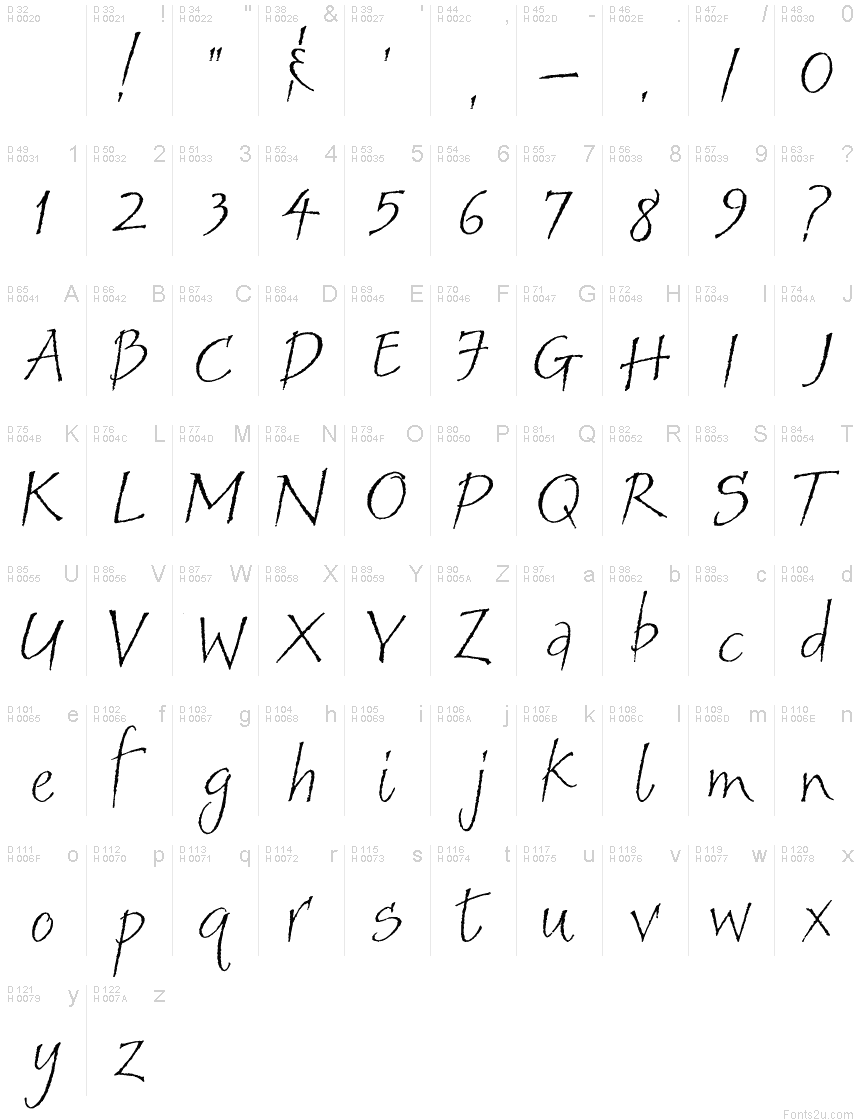
Sandalsis a free handwritten calligraphy font with the loose movement of quick pen lettering. Its uneven, changing strokes and long sweeping lines give the letters an unpolished signature quality.
Fashion labels could use it for branding with a personal, hand-signed air. The same wiry handwriting suits album artwork, invitations, and editorial features built around an intimate voice. Its rough pen marks belong in designs connected with acoustic music, artisan clothing, or personal correspondence.